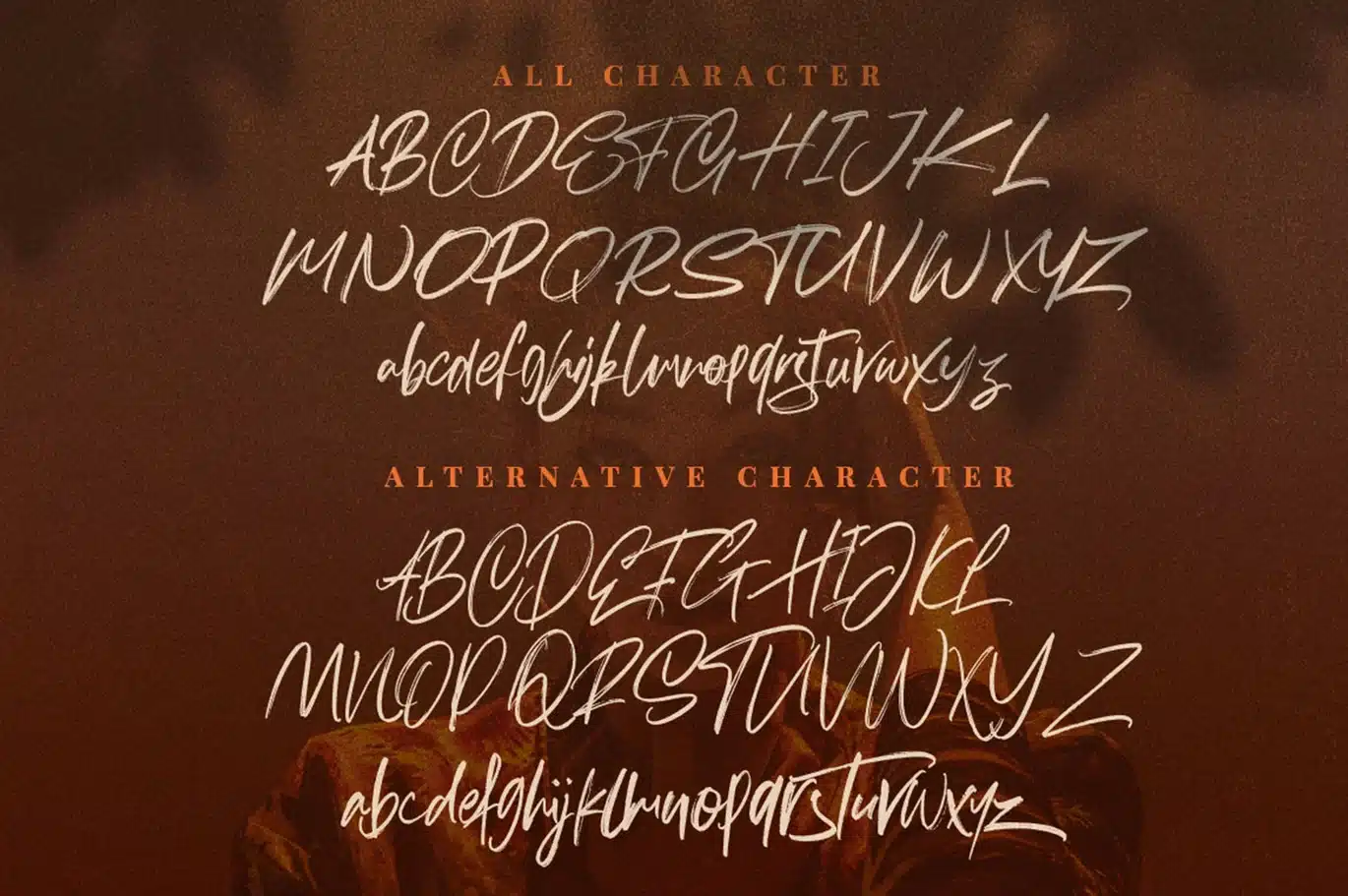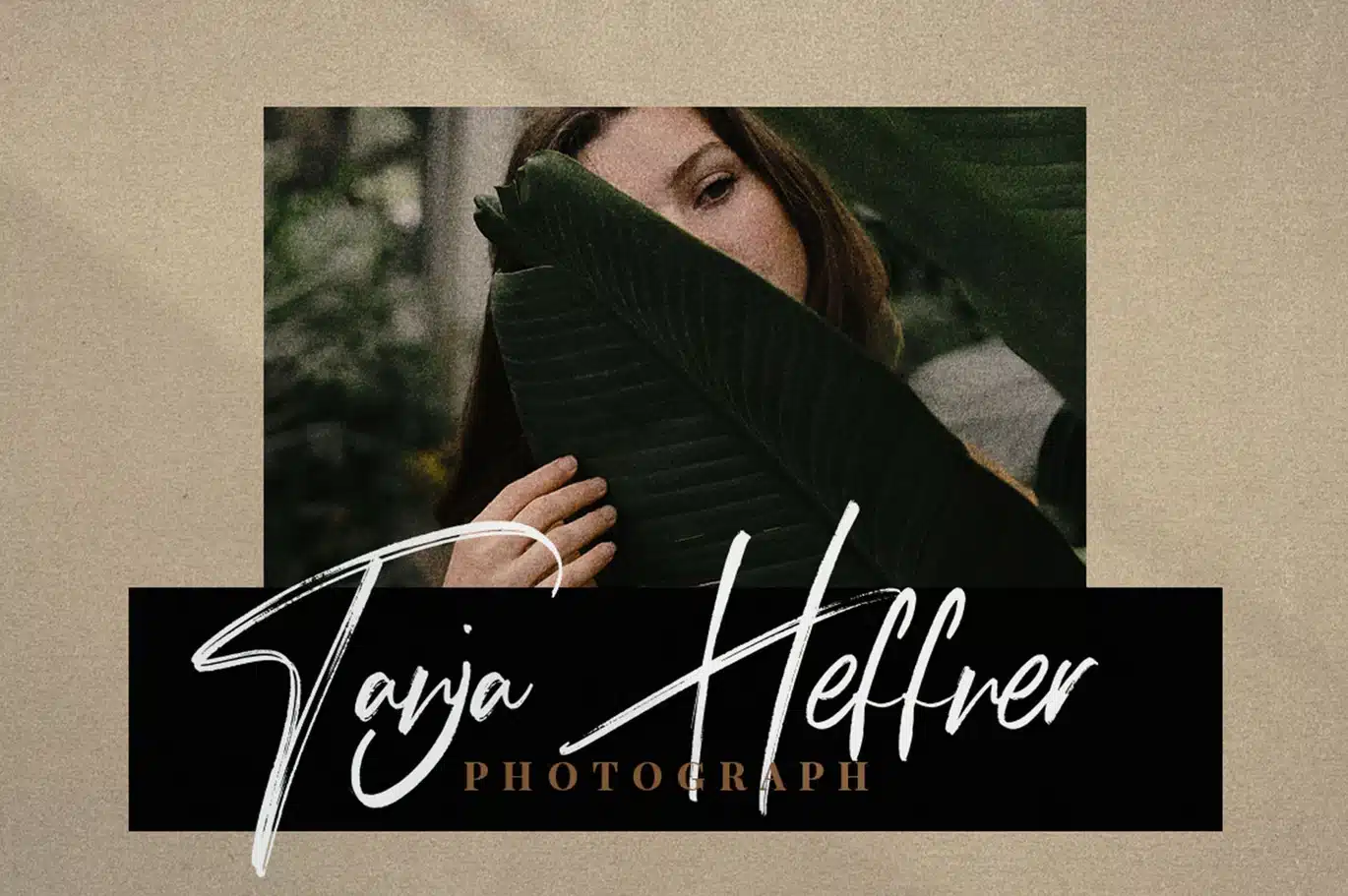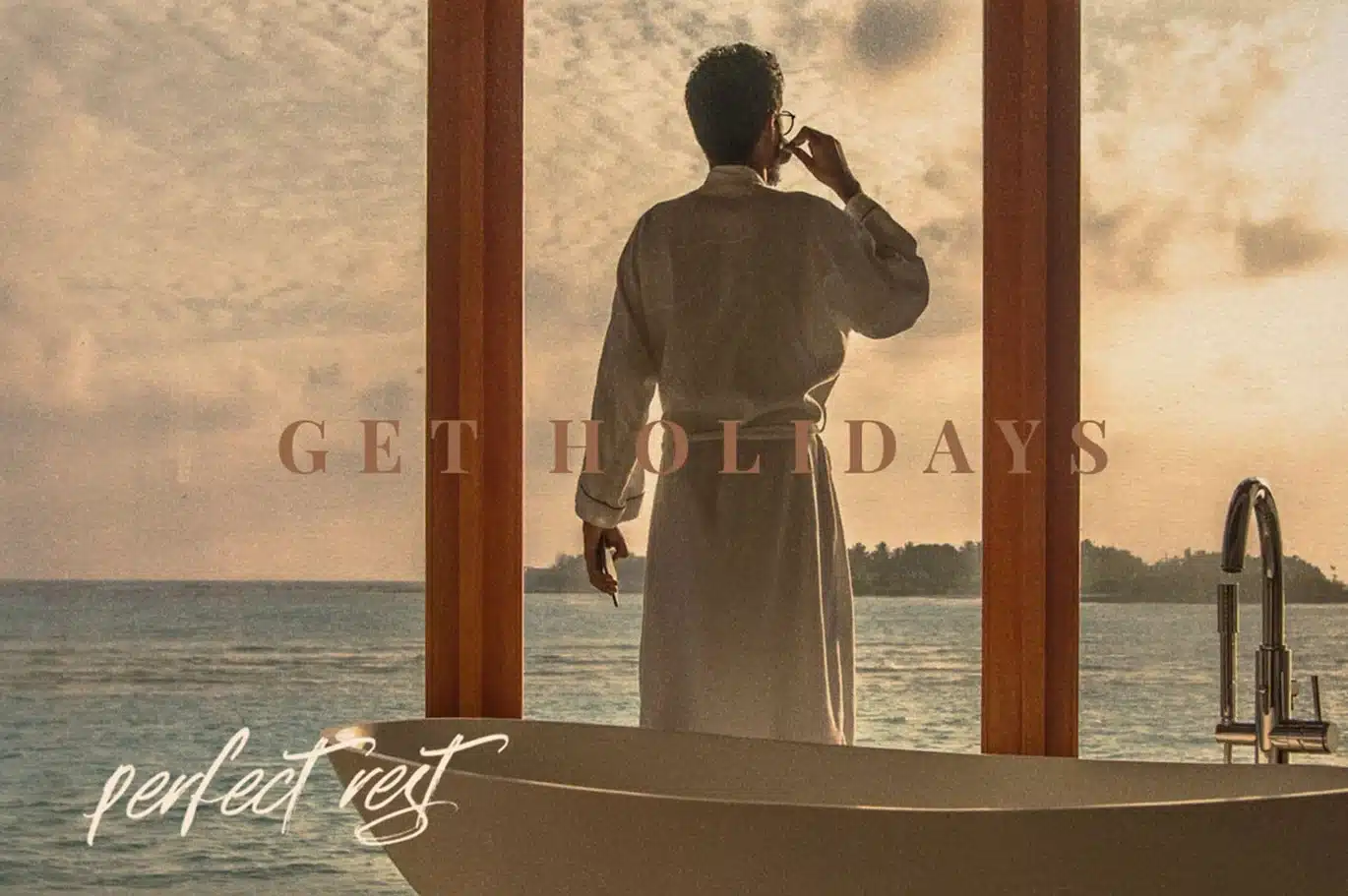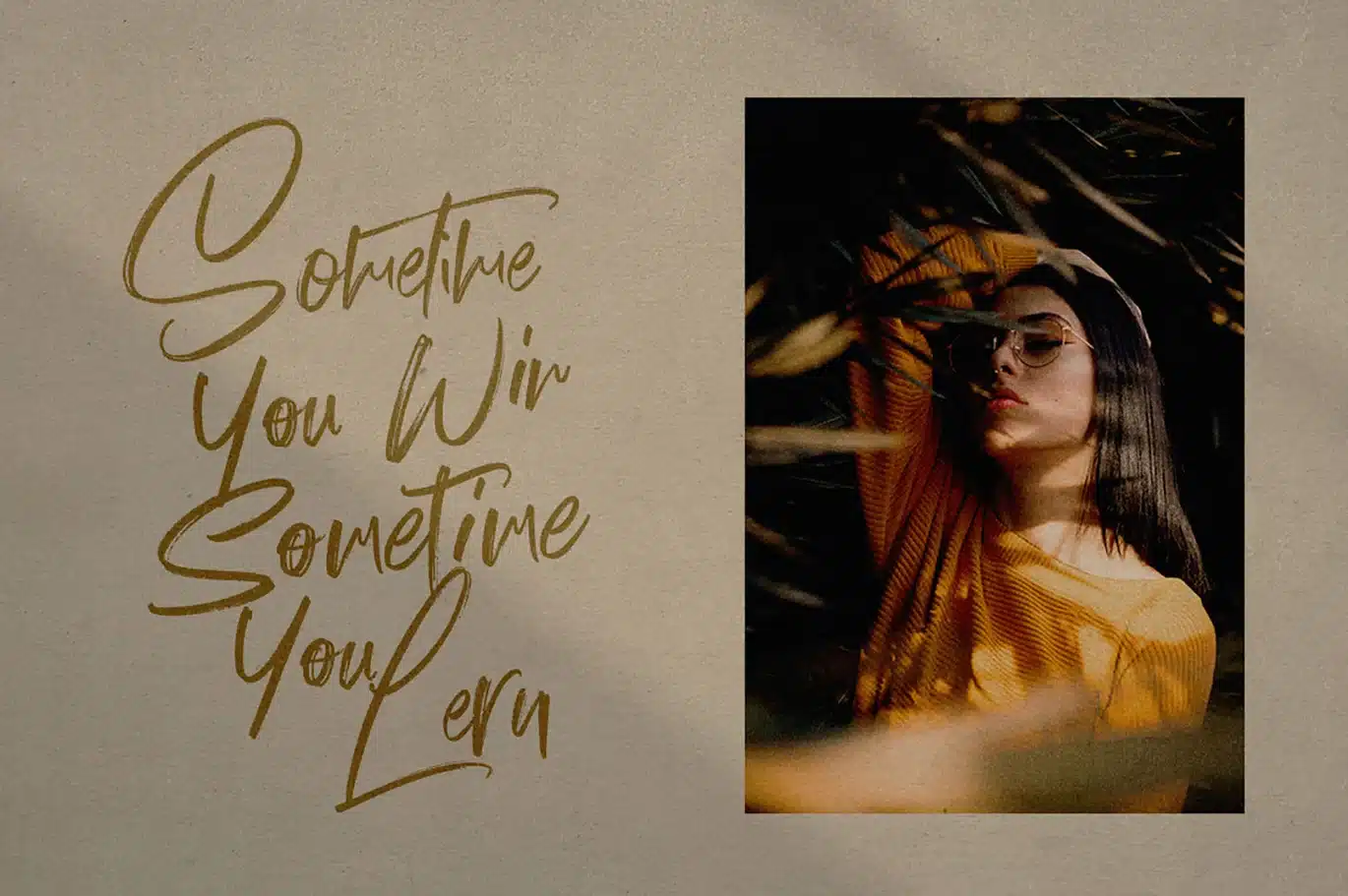
Hereditary Script – Signature Brush Font
Hereditary - a new fresh & modern script with a calligraphy style, a dancing baseline! So beautiful on invitation like greeting cards, branding materials, business cards, quotes, posters, and more!